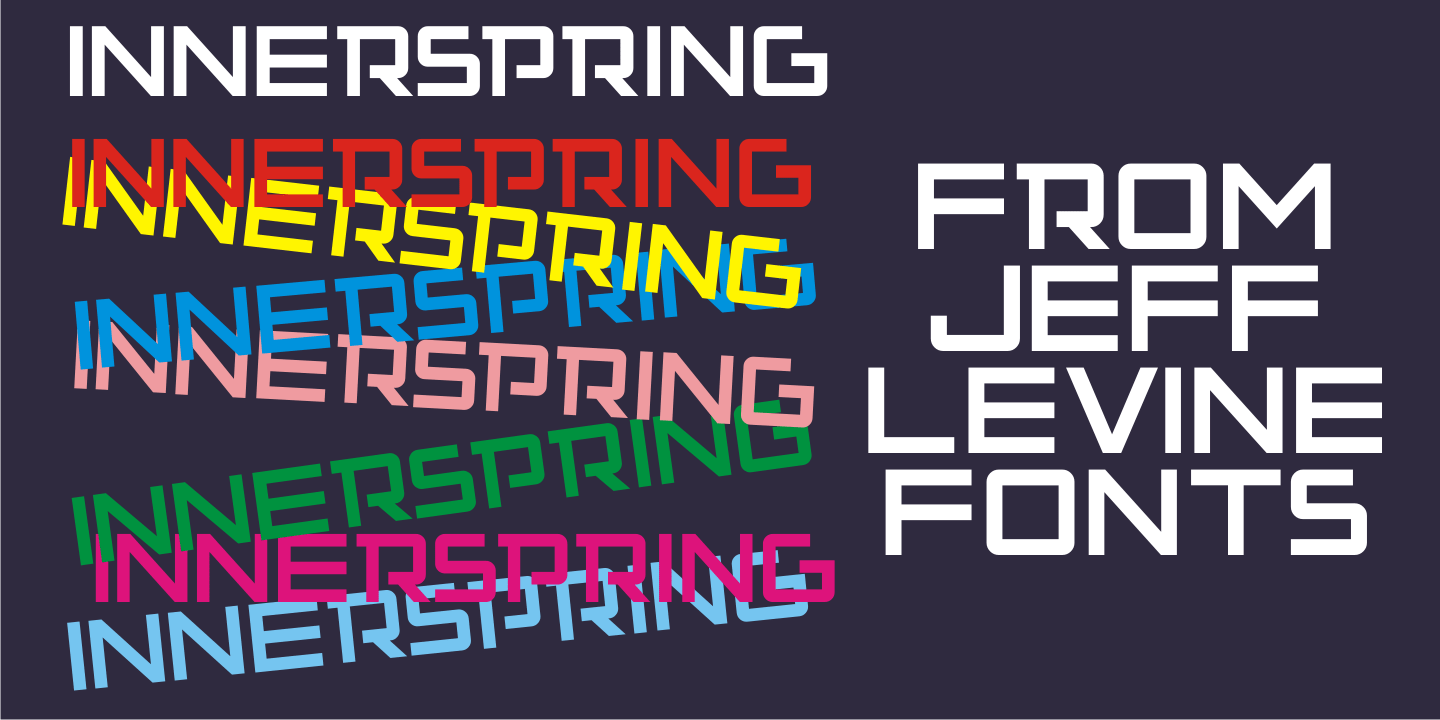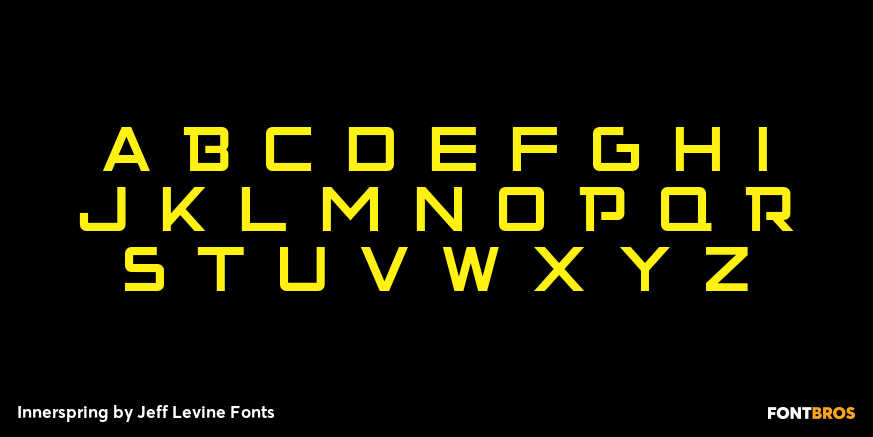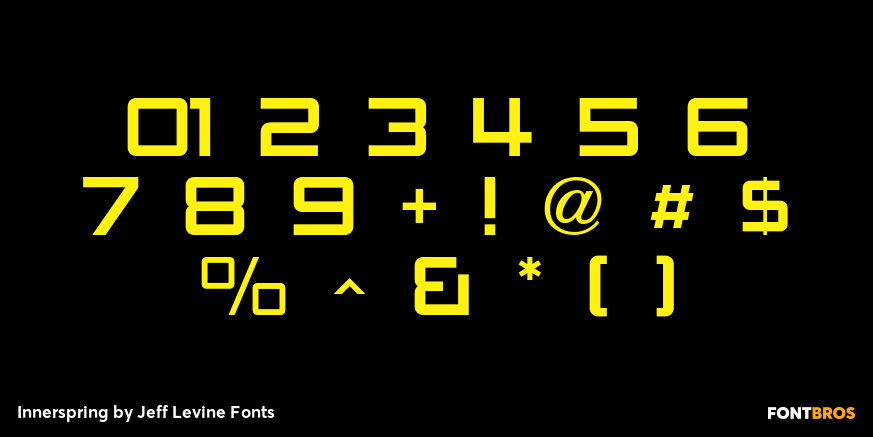
Innerspring
A silk screened sign promoting a mattress sale that was spotted on Flickr features Art Deco-influenced sans serif lettering that is the basis for Innerspring JNL.